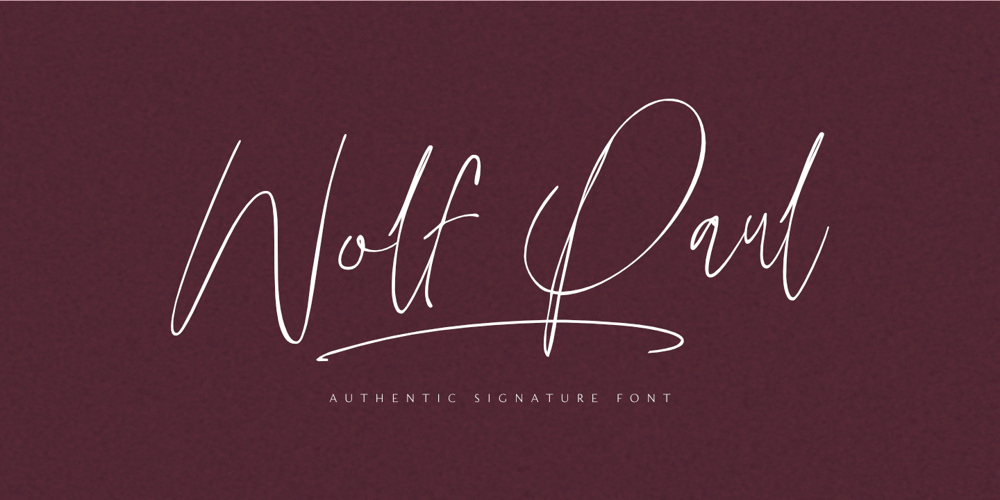
Wolf Paul Font Family was designed by Aldy Sidik, Nurul Hidayani and published by Olivetype. Wolf Paul contains 1 styles and family package options. Wolf Paul is an elegant signature script font. This versatile script font has a wide spectrum of applications ranging from greeting cards, product branding to headlines and more.So what’s included : Basic Latin A-Z & a-z Numbers, symbols, and punctuations Ligatures Accented Characters : ÀÁÂÃÄÅÆÇÈÉÊËÌÍÎÏÑÒÓÔÕÖØŒŠÙÚÛÜŸÝŽàáâãäåæçèéêëìíîïñòóôõöøœšùúûüýÿžß Thank you